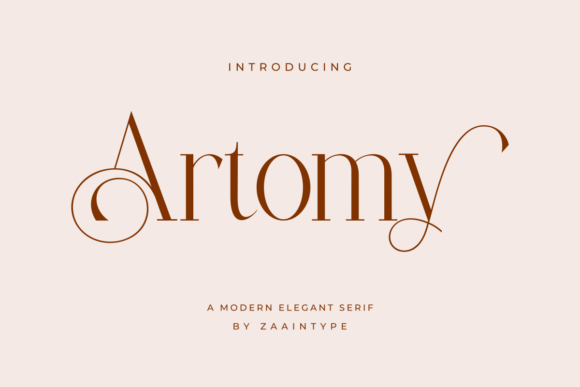
Unveiling Artomy Font: The Epitome of Modern Display Typography
In the realm of typography, few fonts have managed to encapsulate the essence of modernity and dynamism as effectively as Artomy. This contemporary display font is not just a collection of characters; it’s an experience, a statement, and a journey into the future of design. With its bold dynamism and high-impact personality, Artomy is poised to revolutionize the way we perceive and interact with visual content.
The Geometric Elegance of Artomy
At the heart of Artomy’s allure lies its pure, geometric architecture. The font’s design is rooted in the principles of simplicity and clarity, yet it boldly ventures into the realm of innovation by incorporating sharp angles and robust lines. This blend of geometric precision and creative flair results in a visual language that is both compelling and forward-thinking.
The Asymmetric Charm
What sets Artomy apart from its contemporaries is its deliberate introduction of asymmetry. Each character is bestowed with a hint of this stylistic element, which adds a multidimensional allure to the font. This asymmetry doesn’t just add an edge; it crafts a distinct aesthetic that is both captivating and memorable. The result is a font that doesn’t merely convey information but tells a story of innovation and progress.
Artomy in Design: A Game-Changer
Artomy is more than just a font; it’s a design statement. Its unique blend of geometric precision, bold dynamism, and asymmetric charm makes it an invaluable asset for designers looking to make an impact. Whether it’s transforming a logo, elevating a poster design, or infusing any project with a sense of modernity, Artomy proves to be a versatile and powerful tool.
Logo Design with Artomy
In the world of branding, a logo is often the first point of contact between a company and its audience. Artomy, with its high-impact personality and geometric elegance, offers a fresh perspective on logo design. It enables brands to communicate their forward-thinking approach and commitment to innovation right from the outset.
Poster Design Elevated
Poster design is an art form that thrives on visual impact and clear communication. Artomy, with its bold lines and asymmetric charm, brings a new level of engagement to posters. It helps designers create focal points that draw the viewer in and keep them engaged. Whether the goal is to advertise, inform, or inspire, Artomy ensures that the message is delivered with clarity and style.
Infusing Projects with Modernity
Beyond logos and posters, Artomy’s versatility shines in its application across various design projects. From digital interfaces to print materials, this font brings a contemporary edge that can elevate any design. Its use can signal to the audience that the content, product, or service is modern, forward-thinking, and ready for the future.
Artomy is not just a font; it’s a movement towards a more dynamic, more engaging, and more visionary approach to design. Its combination of geometric architecture, bold dynamism, and asymmetric charm positions it as a frontrunner in the world of contemporary typography. For designers and crafters looking to leave a mark, to make a statement, or simply to bring a touch of modernity to their work, Artomy offers a compelling solution. Immerse yourself in the progressive allure of Artomy and discover a new dimension of design possibilities.
The journey into the world of Artomy is not just about adopting a new font; it’s about embracing a design philosophy that values innovation, clarity, and impact. As designers and crafters explore the capabilities of Artomy, they are likely to discover new avenues for expression and communication.
In conclusion, Artomy stands as a testament to the evolving nature of design and typography. It challenges conventional norms and invites designers to push the boundaries of creativity. With Artomy, the future of design is not just envisioned; it’s created, one character at a time.